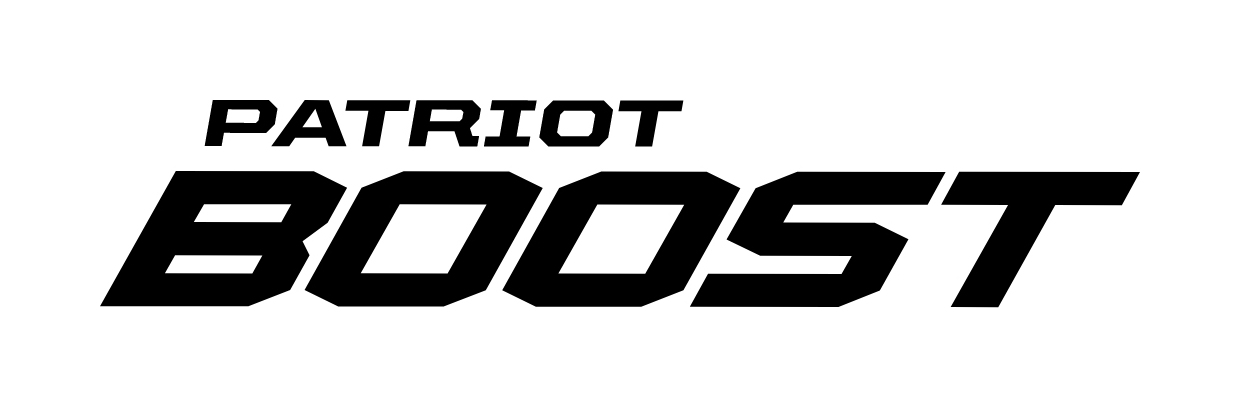
It looks like Beachwood Wide Bold, with serifs on the I and the leg of the R. This is a variable font, so the word BOOST could be slanted more than the italic.